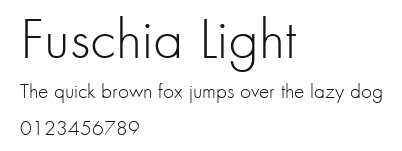
Fuschia Light Preview
• Font Name: Fuschia Light
• Full Font Name: Fuschia Light
About Fuschia Light.ttf
Fuschia Light.ttf is a modern, elegant sans-serif font designed for ultimate readability and visual harmony. Perfect for branding, headlines, web design, and print materials.